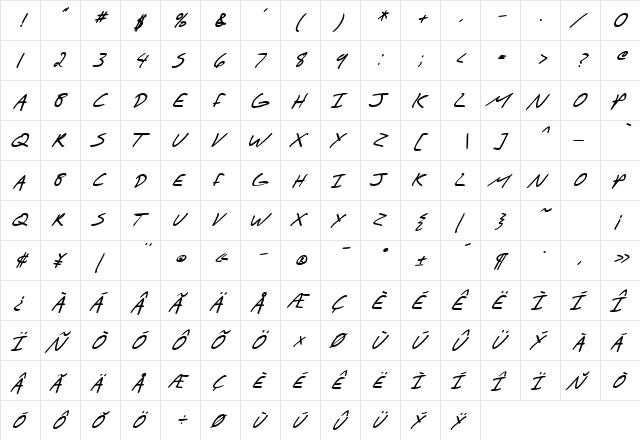
SF Scribbled Sans SC Bold Italic
Design Context for SF Scribbled Sans SC Typeface
SF Scribbled Sans SC is a composed and adaptable typeface that performs quietly and consistently across a wide range of design contexts. Its italic angle brings a sense of urgency and motion to the letterforms. Its bold stroke weight gives it real presence on the page.
Pro Tip: Try SF Scribbled Sans SC for annotation and caption copy alongside an upright companion — the contrast in angle creates a dynamic but ordered typographic system.